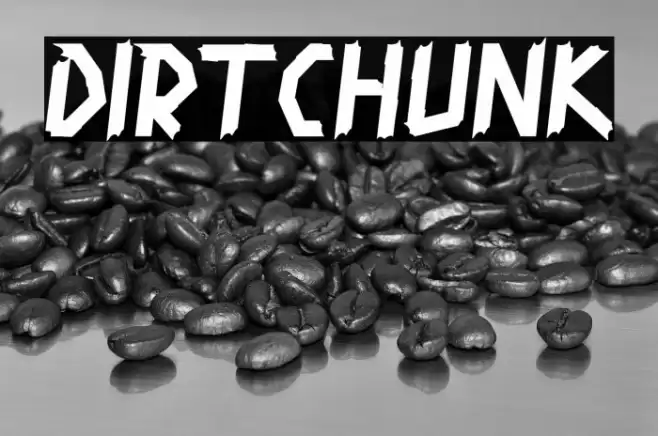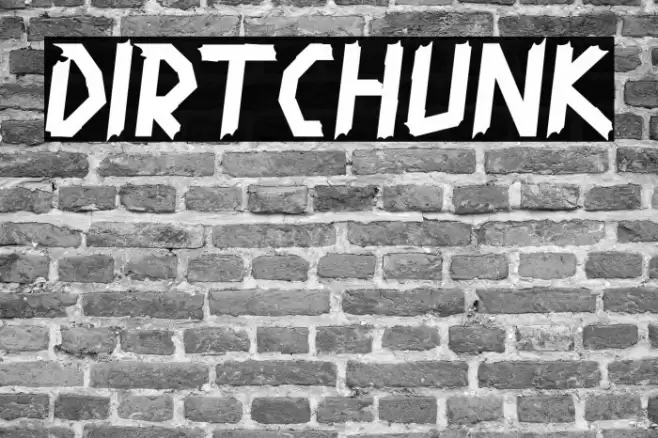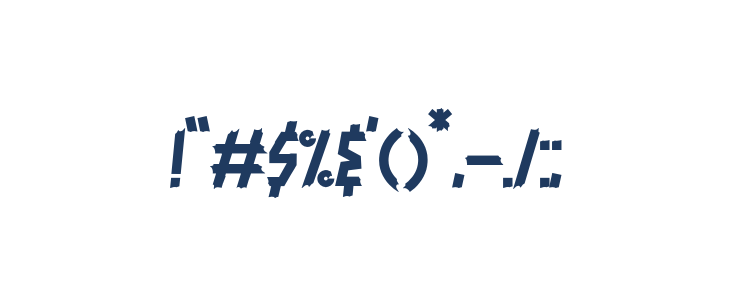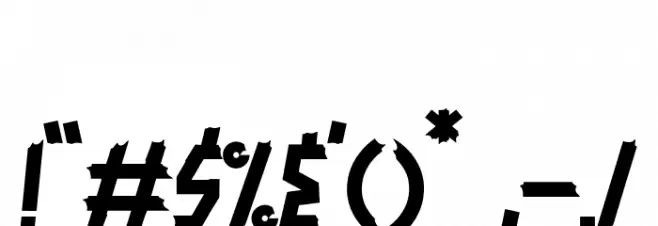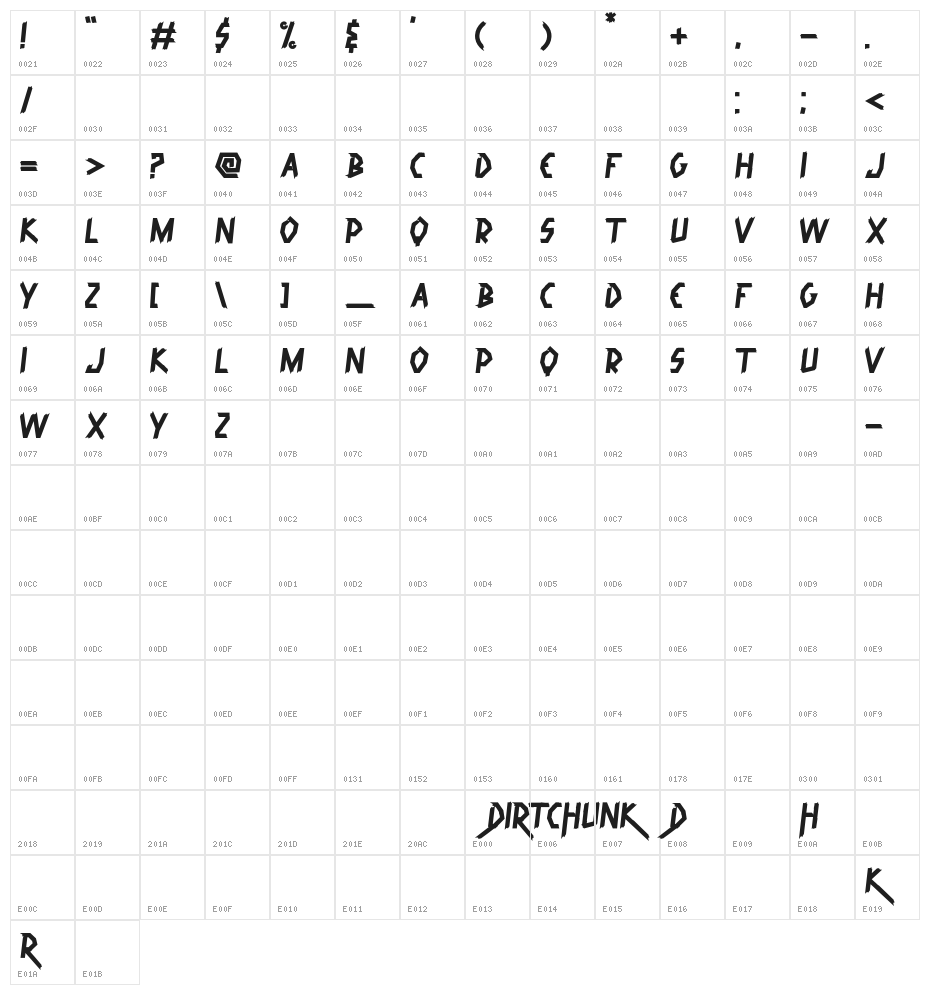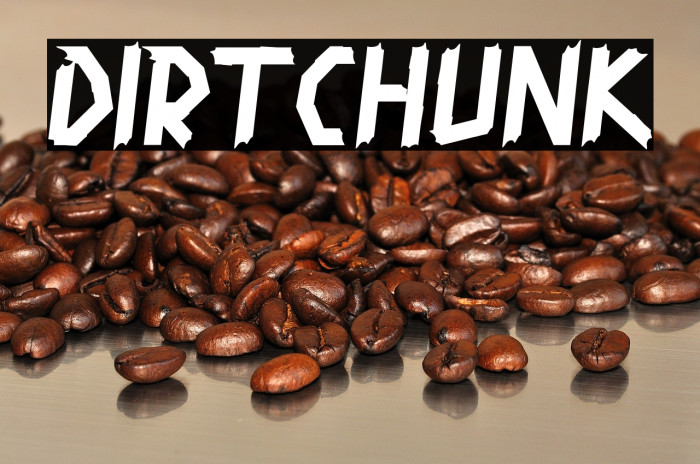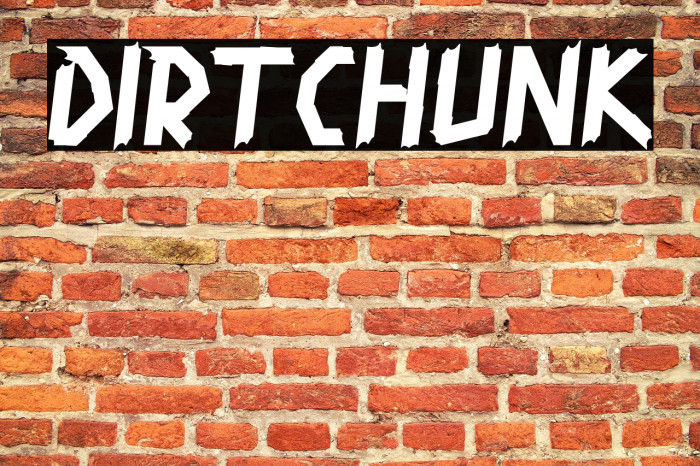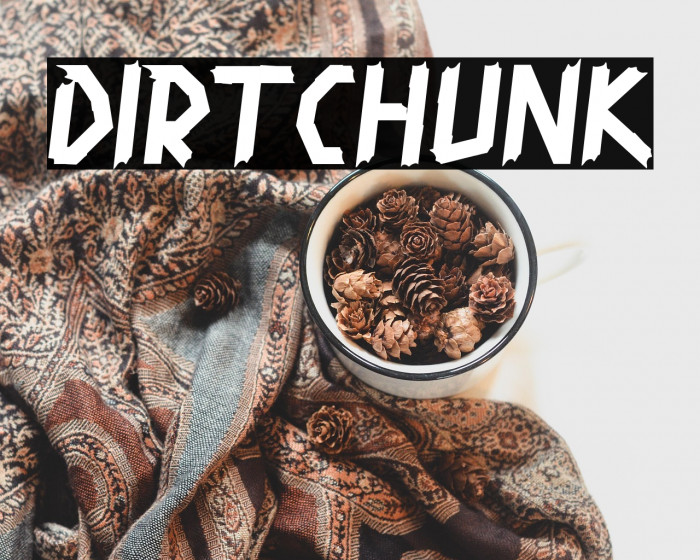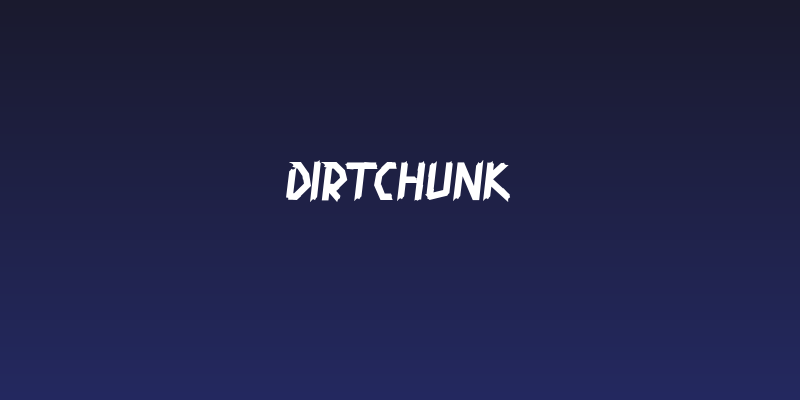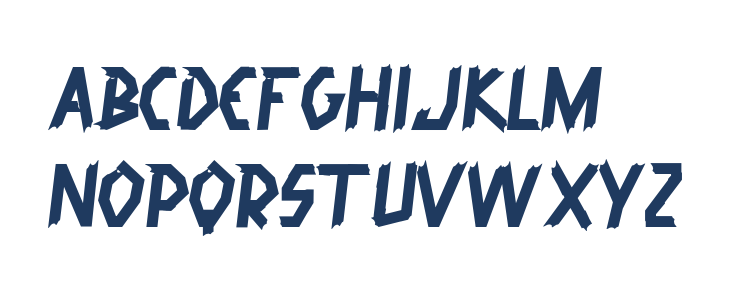
Dirtchunk Font
Dirtchunk Description
This font features a bold and rugged design with sharp, angular edges that give it a dynamic and aggressive appearance. The characters are heavily stylized, with a distressed texture that suggests a sense of movement and energy. The uppercase and lowercase letters maintain a consistent style, with a slightly condensed width that enhances the compact and impactful look. The numerals and special characters follow the same aesthetic, ensuring uniformity across all glyphs. This font is ideal for projects that require a strong, eye-catching typeface with a modern and edgy vibe.
A bold, angular font with a rugged, distressed texture from Regular fonts.